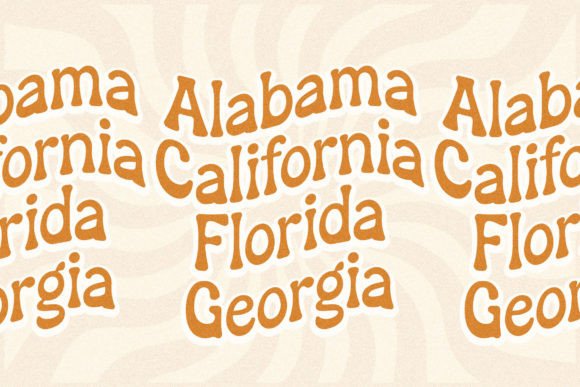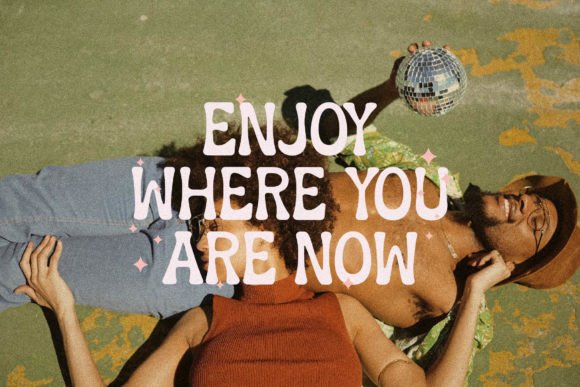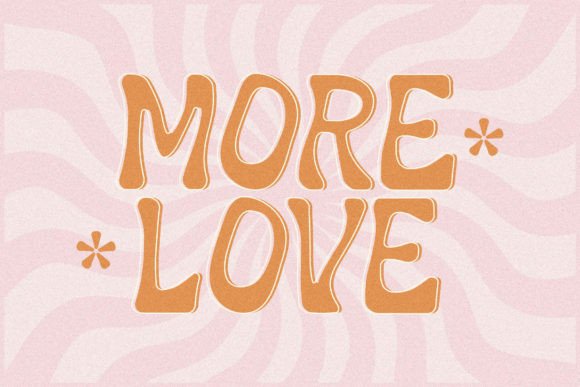
The Fruits Delight Font: A Fun and Groovy Serif Display Font
I’ll never forget the time I was working on a project for a client who wanted a fun and quirky font to match their brand’s playful personality. I spent hours scouring the internet for the perfect font, but nothing seemed quite right. That was until I stumbled upon the Fruits Delight font. With its cool retro vibe, I knew I had found the one! In this article, I’ll share my experience with Fruits Delight, including what I love about it, some quirks to watch out for, and how to get the most out of this amazing font.
So, what do I love about Fruits Delight? Here are a few things that make it stand out:
- ✨ Unique and quirky design: Fruits Delight has a one-of-a-kind look that’s sure to turn heads.
- ✅ Highly versatile: This font can be used for a wide range of design projects, from posters and flyers to social media graphics and more.
- 💥 Fun and playful vibe: Fruits Delight is perfect for designs that need a bit of personality and whimsy.
Of course, no font is perfect, and Fruits Delight has a few quirks to watch out for:
- 🤔 Limited use in formal designs: While Fruits Delight is amazing for playful designs, it may not be the best choice for more formal projects.
- ⚠️ Some letters may be a bit tricky to read: As with any decorative font, some letters may be a bit harder to read, especially at smaller sizes.
The Backstory of Fruits Delight
Fruits Delight was designed by a team of creatives who wanted to create a font that captured the fun and playfulness of the 60s and 70s. Inspired by retro advertisements and vintage posters, Fruits Delight is a love letter to the design of yesteryear.
| Font Name | Fruits Delight Font |
| Author | Storytype Studio |
| What is Fruits Delight best used for? | Fruits Delight is best used for designs that need a fun and playful vibe, such as posters, flyers, and social media graphics. |
| Does Fruits Delight have OpenType features? | Yes, Fruits Delight has OpenType features like glyphs and stylistic alternates that can be accessed in compatible design software. |